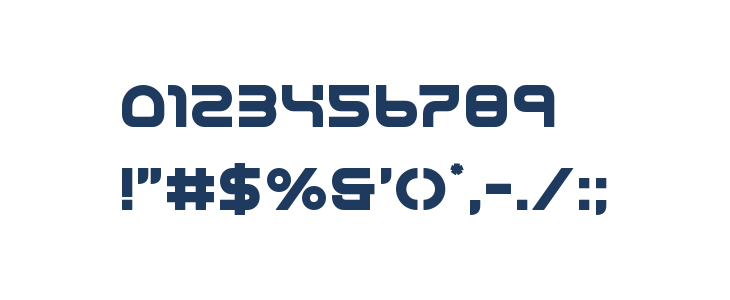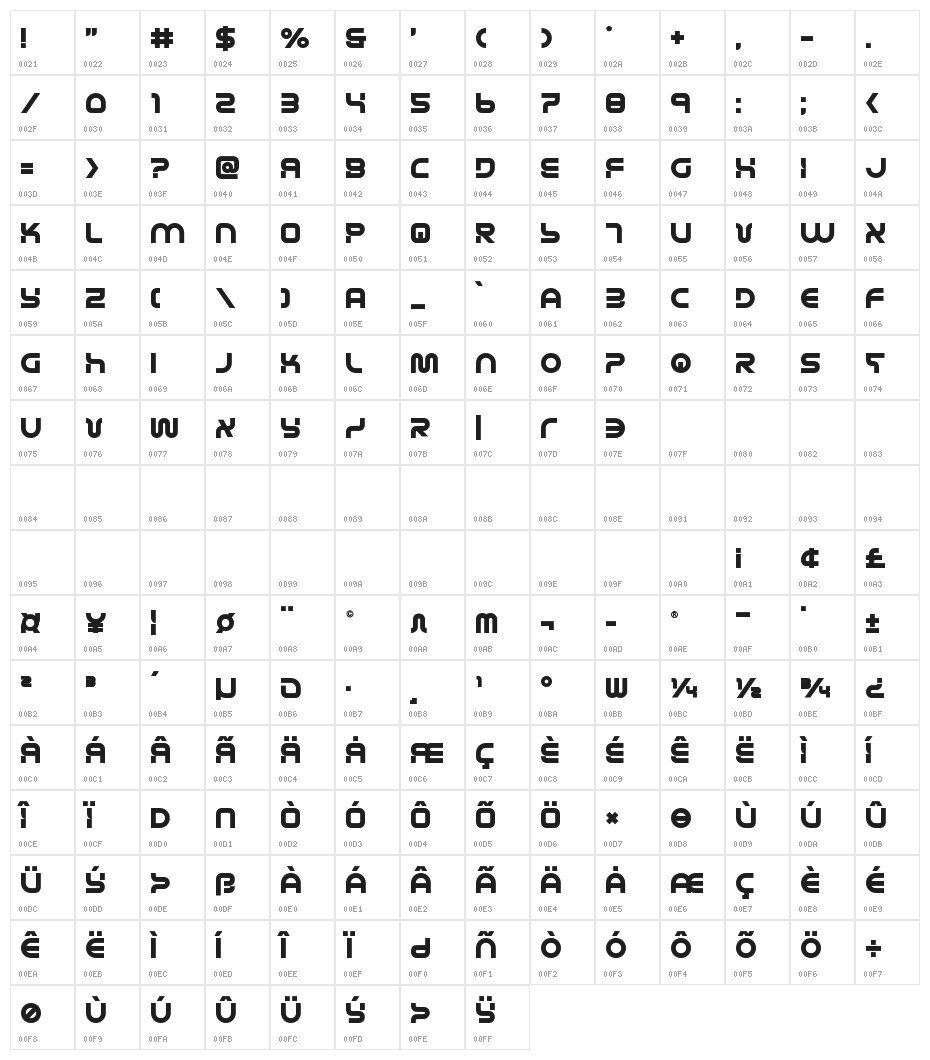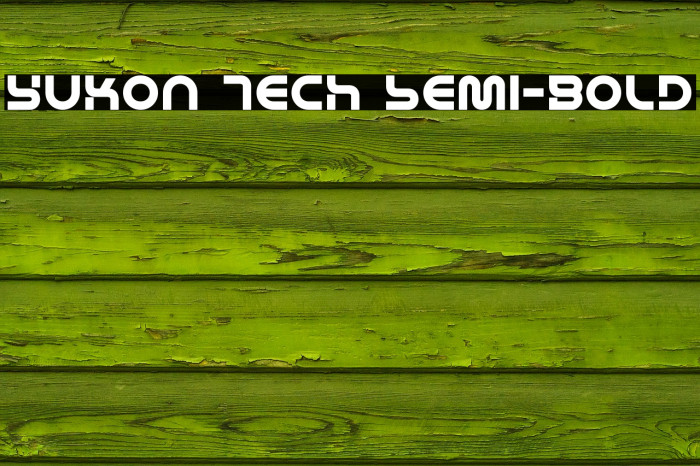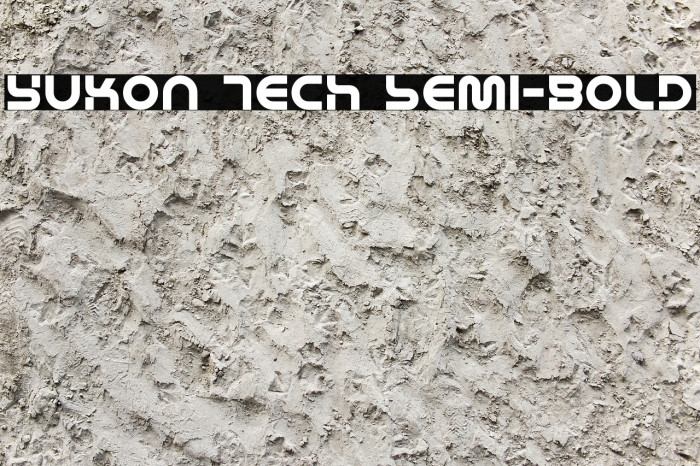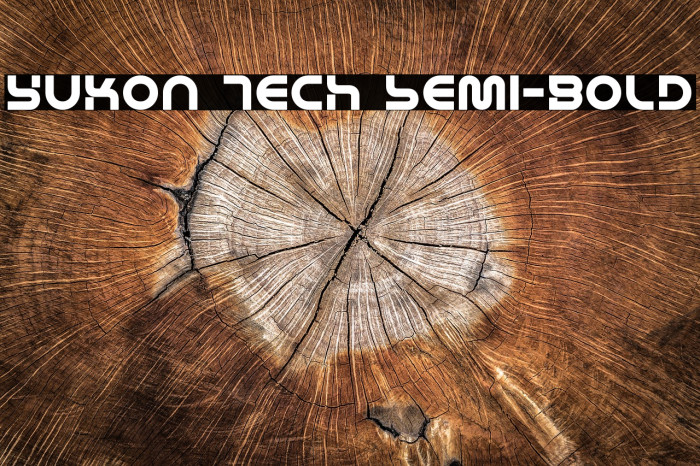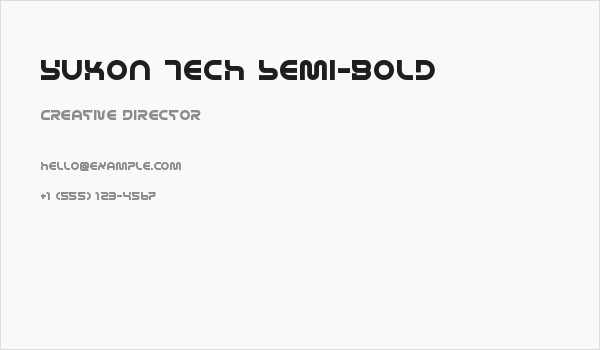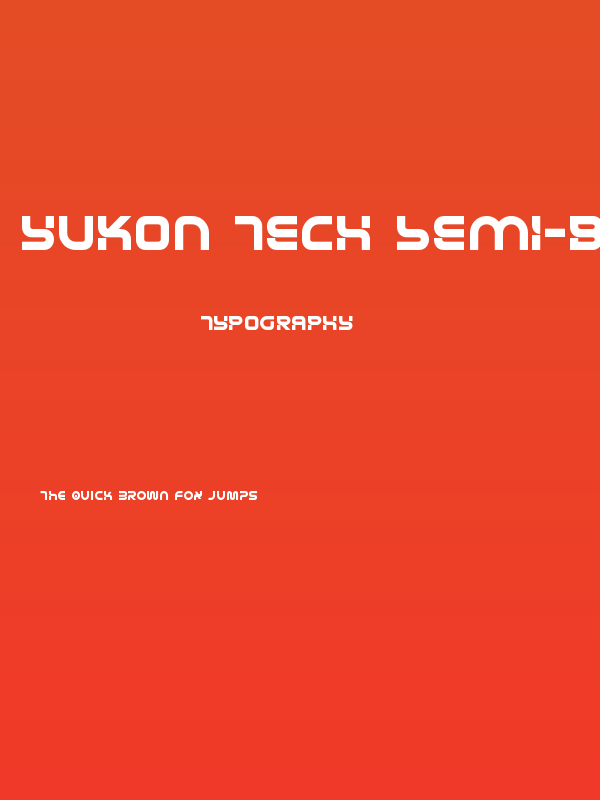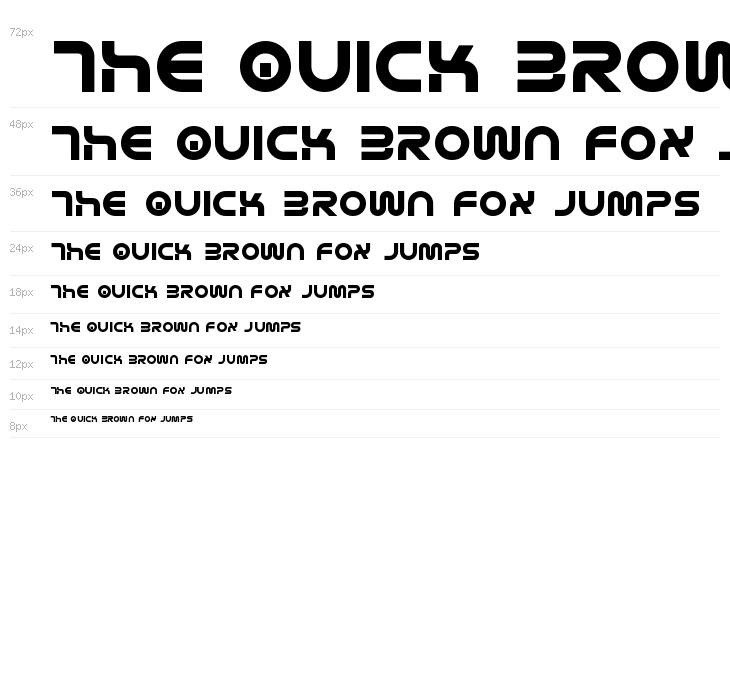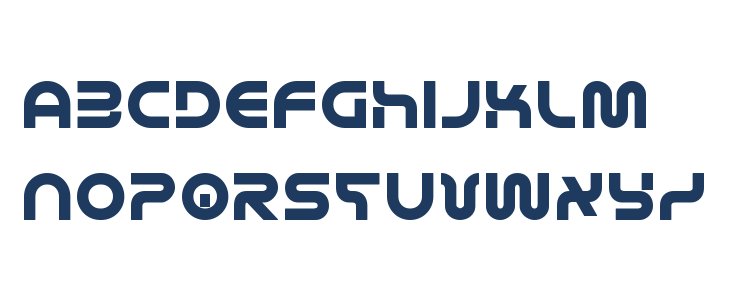
Yukon Tech Semi-Bold Font
Yukon Tech Semi-Bold Description
This font features a futuristic and geometric design with a strong emphasis on rounded edges and bold lines. The characters are constructed with a consistent thickness, creating a uniform and cohesive appearance. The design incorporates unique cutouts and angles, giving it a distinct technological and modern feel. The uppercase and lowercase letters maintain a similar style, ensuring readability while adding a touch of creativity. The numerals and special characters follow the same design principles, making them easily recognizable and visually appealing.